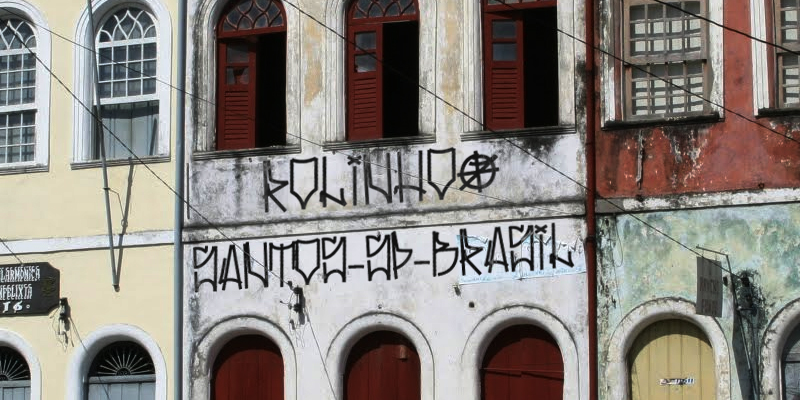
Note by angrydubs | |
Inspired by the calligraphy done with paint rollers. Free for personal use, but donations are always welcome, let me keep working for all |